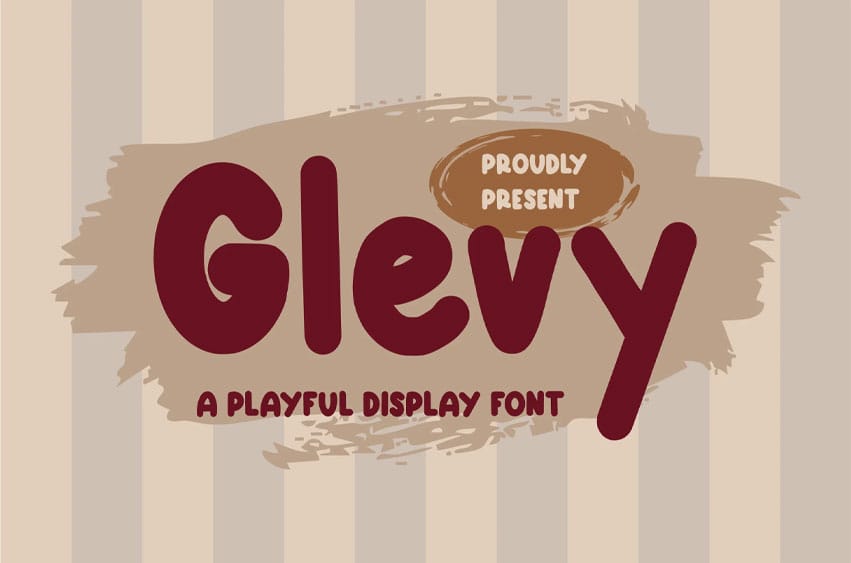
Glevy Font is a bold handwritten typeface with a confident, friendly rhythm—built for headlines that feel personal and full of energy.
Its thick strokes and slightly imperfect curves mimic real marker lettering, giving every word a human touch without losing clarity.